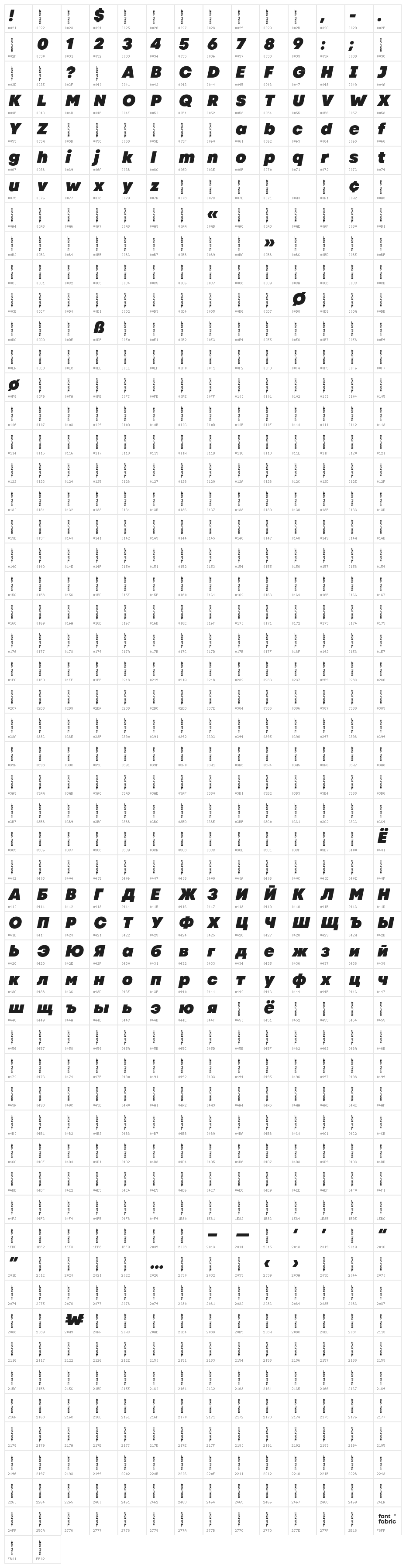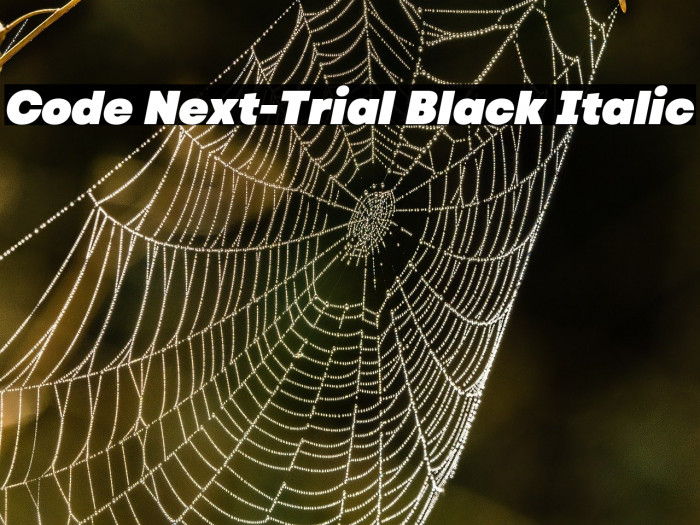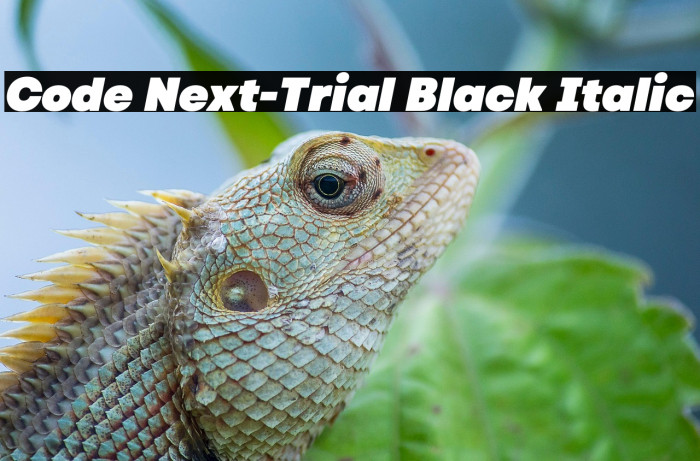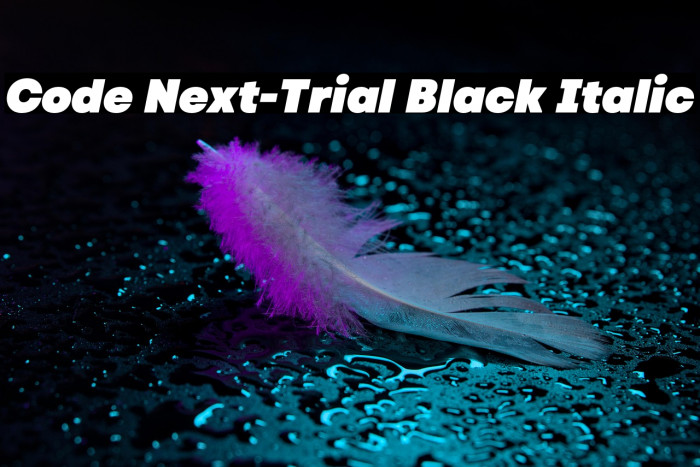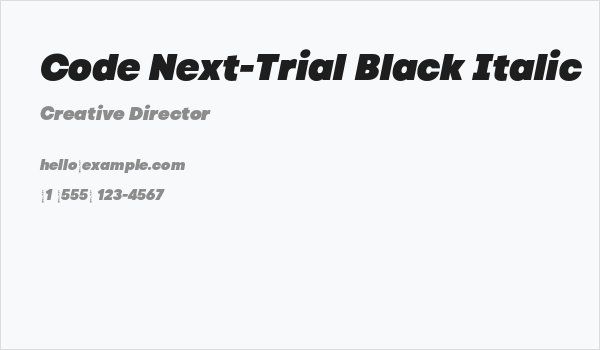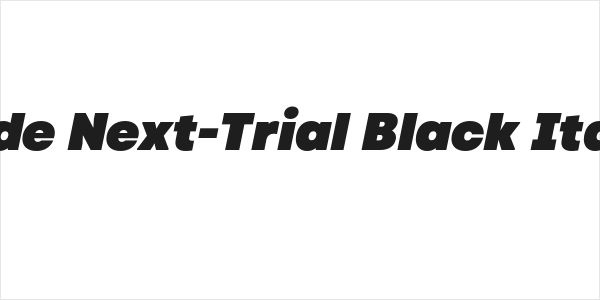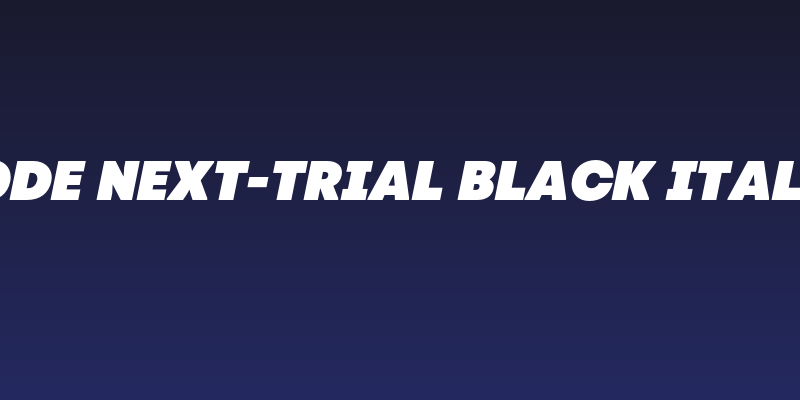
Code Next-Trial Black Italic Font
Code Next-Trial Black Italic Description
This font exhibits a bold and dynamic character with a strong italic slant, giving it a sense of movement and urgency. The letters are thick and robust, with a uniform stroke width that maintains consistency across all characters. The uppercase and lowercase letters are well-proportioned, ensuring readability while retaining a distinctive style. The numerals are equally bold, matching the weight and style of the alphabetic characters. Special characters are included, maintaining the same bold and italicized style, making this font versatile for various applications. The overall appearance is modern and impactful, ideal for making a strong visual statement.
| Proposed Projects | Ideal for headlines, posters, branding, and advertising where a strong, impactful presence is desired. |